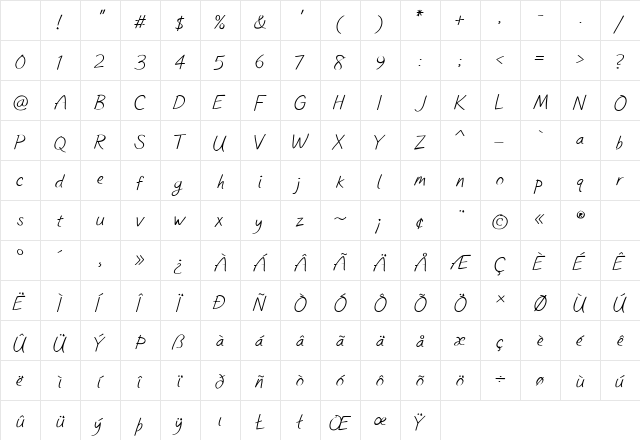
LT Feelgood is a composed and adaptable typeface that performs quietly and consistently across a wide range of design contexts. Its slender proportions lend an understated elegance to any composition.